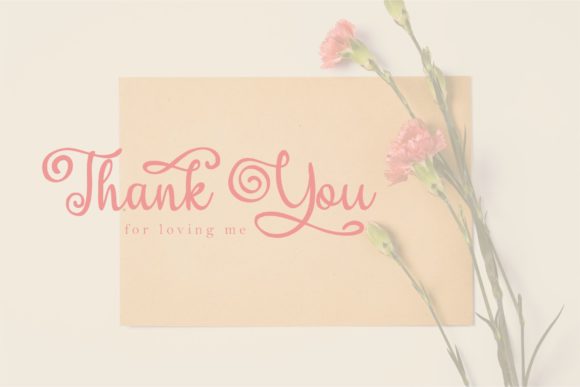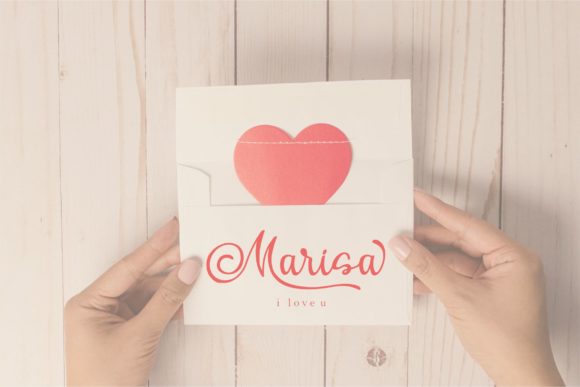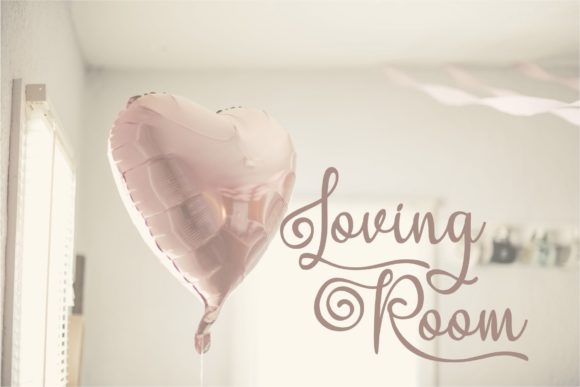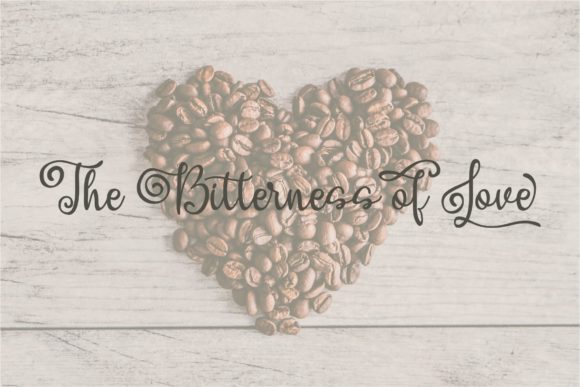
Introduction to Maylane Font
As designers, we’ve all had that moment when we’re brainstorming ideas for a project and the perfect font just pops into our minds. For me, that moment came when I stumbled upon the Maylane Font – a beautiful and loving handwritten font that instantly elevates any design.
The Maylane Font is more than just a pretty face; it’s a valuable asset for designers looking to add a personal touch to their creative projects. With its high quality and versatility, it’s perfect for wedding invitations, quotes, greetings, and so much more. Whether you’re working on a design project with a transparent background or need a font that adds a touch of elegance, the Maylane Font is sure to make your design come alive.
Key Features of Maylane Font
- High-quality, elegant design perfect for creative projects
- Unique, modern style with subtle flair, ideal for branding and editorial projects
Honest Review: Maylane Font
I recently came across the Maylane Font, and I must say, it’s a high quality addition to any designer’s toolkit. This font is perfect for creative projects that require a unique touch. The transparent background and sleek design make it an ideal choice for modern branding and web design.
- ✨ High quality design that’s perfect for creative projects
- ✨ Sleek and modern design that’s perfect for branding and web design
- ⚠️ Limited font styles and weights available
- ⚠️ Not suitable for projects that require a lot of font customization
Overall, I’m really impressed with the Maylane Font. It’s a great addition to any designer’s toolkit, and I would highly recommend it for any creative project. Just be aware of the limitations, and you’ll be all set to create some amazing designs with this font.
Tips for Getting the Most Out of Maylane Font
Maylane Font is a high-quality design resource that can be used in a variety of creative projects. To get the most out of it, consider using it with a transparent background to create a clean and modern look. You can also use it in combination with other design elements to add visual interest to your project.
Common Use Cases for Maylane Font
Maylane Font is a versatile design resource that can be used in a variety of applications, including logos, branding materials, and marketing materials. It’s also a great choice for creating social media graphics and presentations.